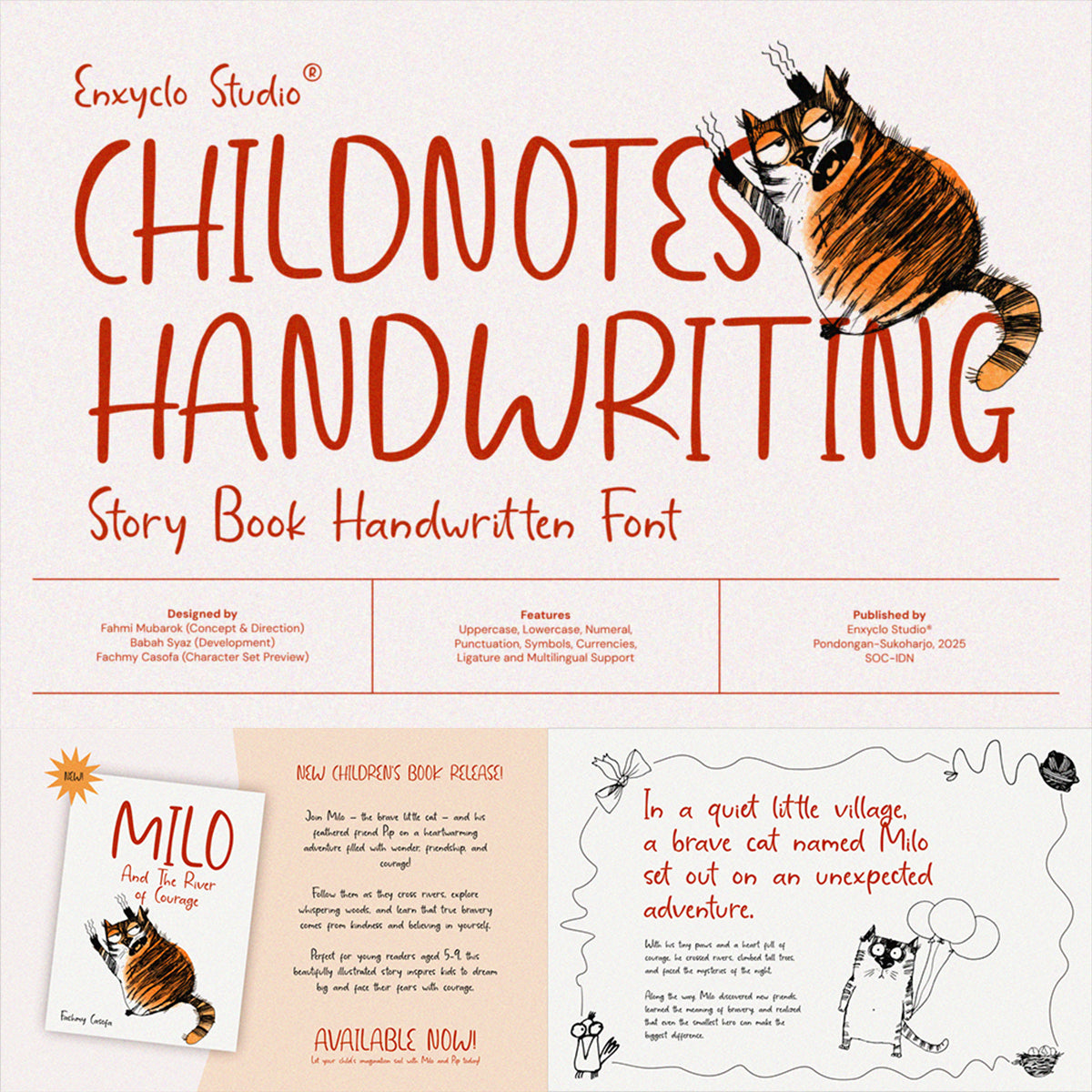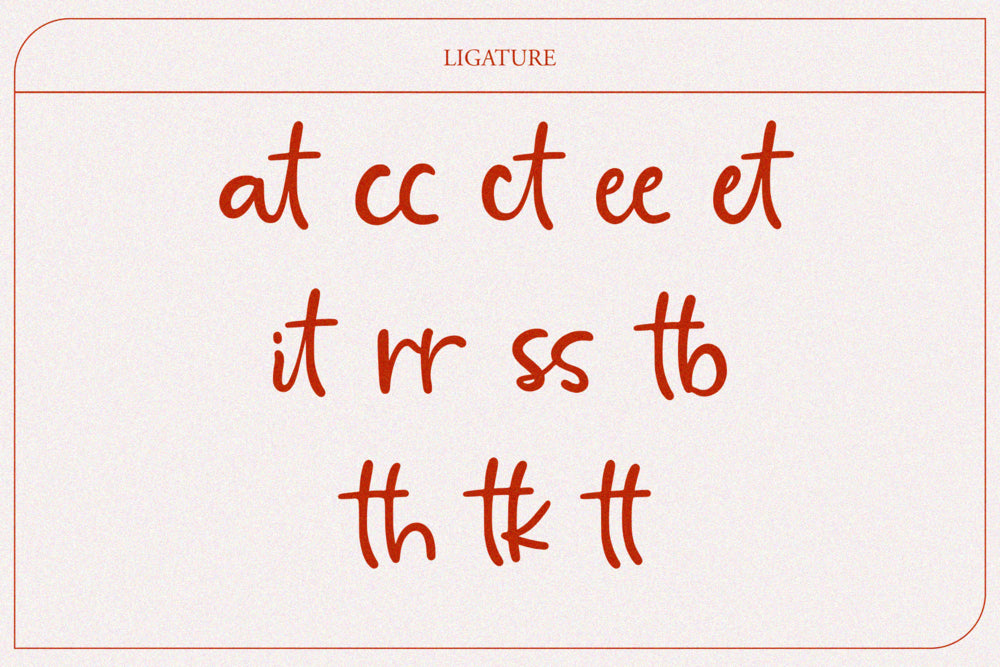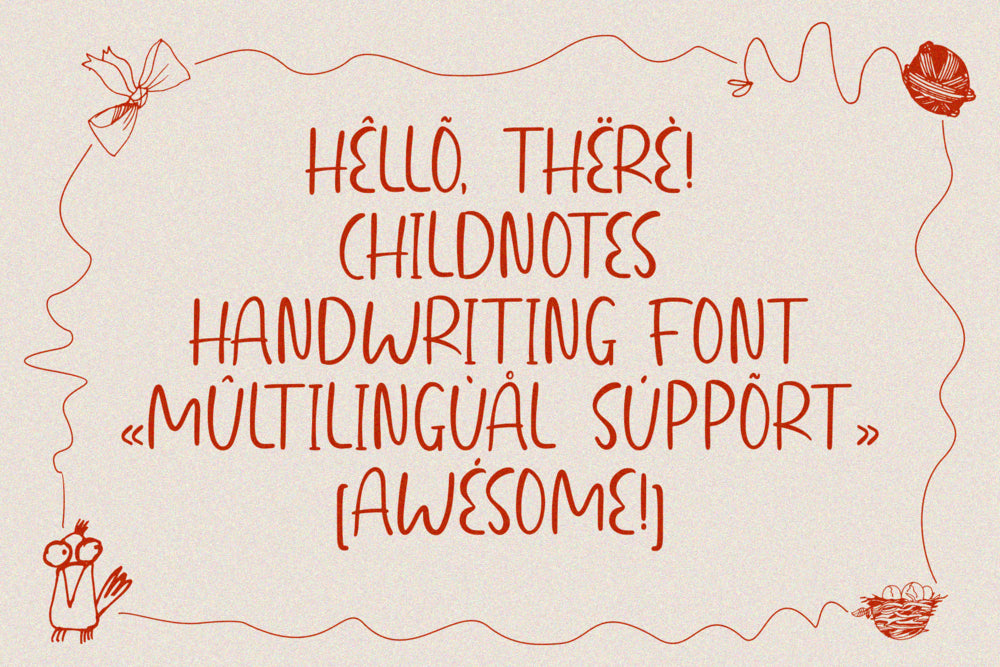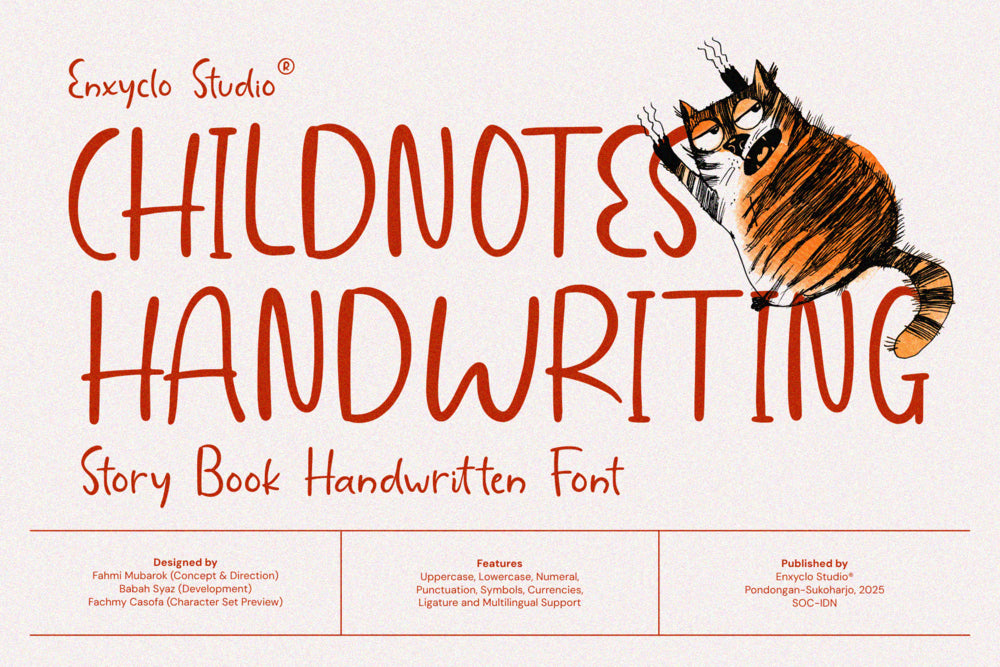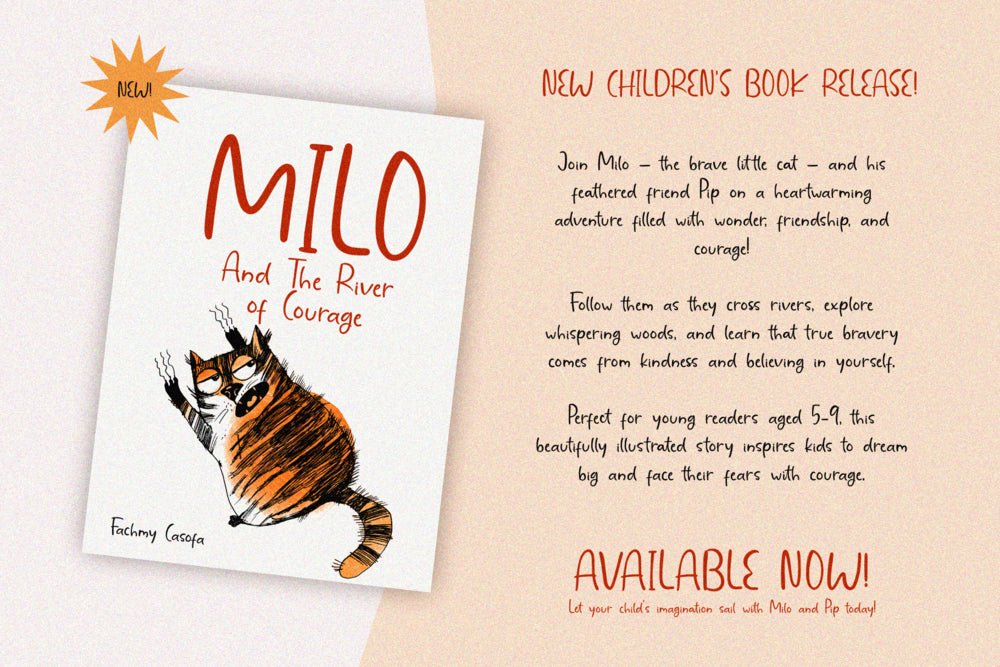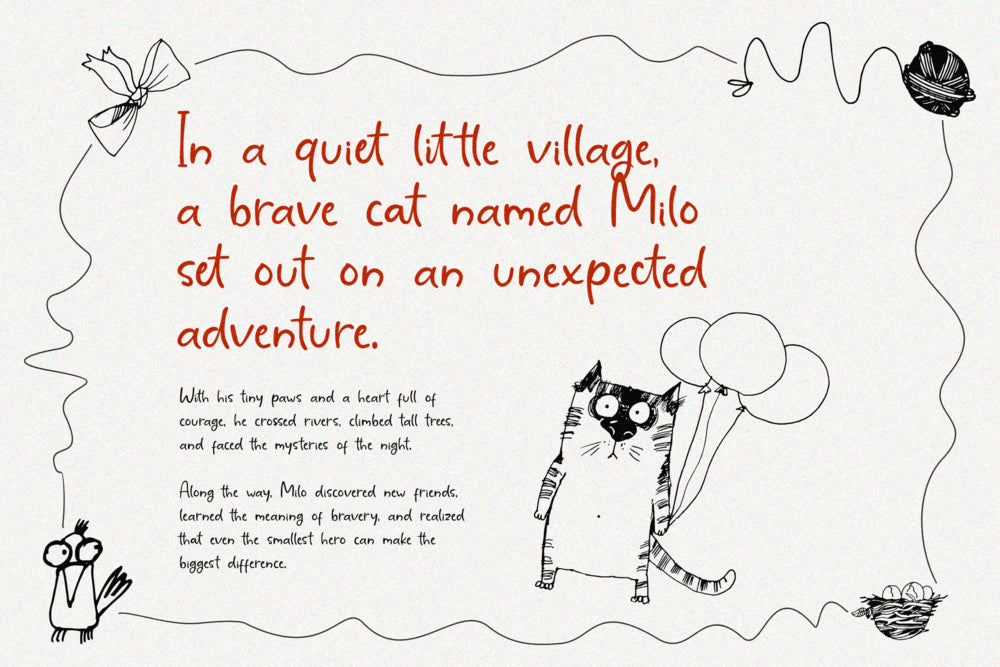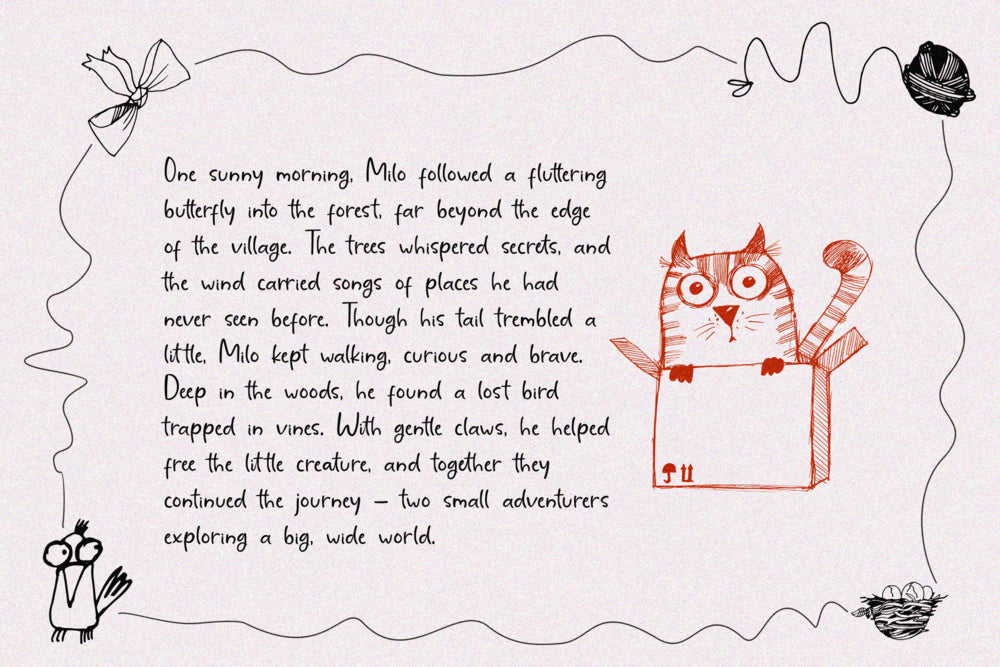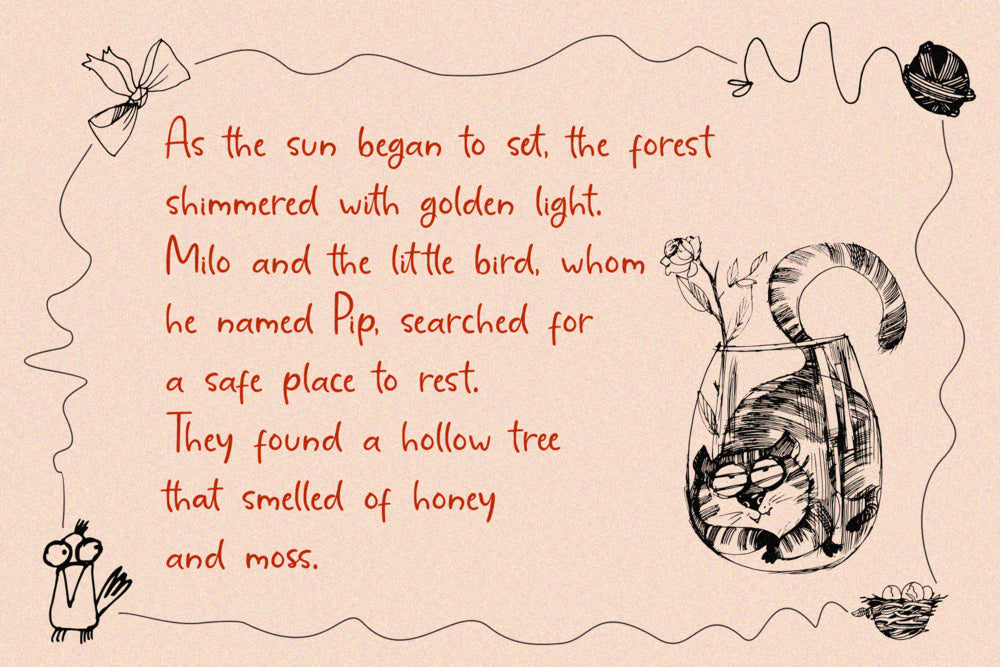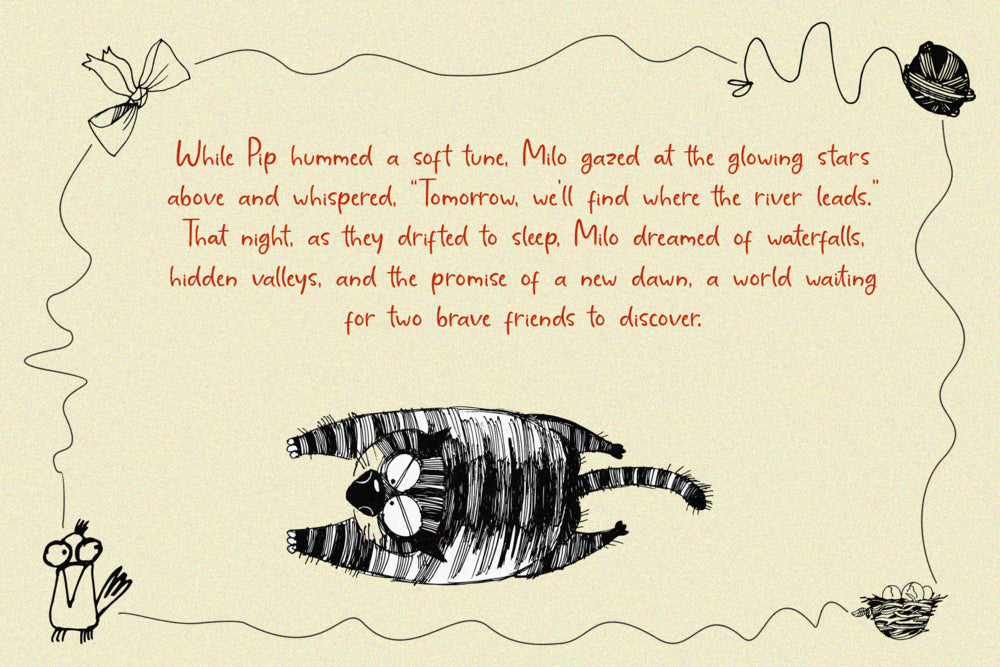
CHILDNOTES HANDWRITING — Story Book Kids Font
Childnotes Handwriting is a handwritten font that features playful curves and friendly strokes, designed to resemble children's handwriting. It includes uppercase and lowercase letters, punctuation marks, a symbol set, currency symbols, ligatures, and multilingual support, available in OTF, TTF, and WOFF formats.